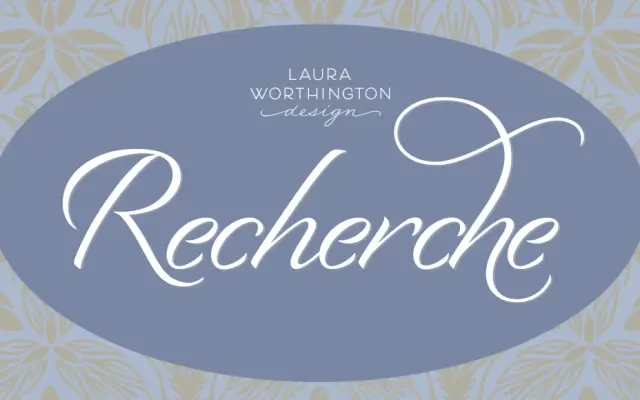
Recherche
A calligraphic italic script with long arcing verticals and 89 lowercase swash alternates, suited to menus, wine labels and wedding stationery.
Built on italic, calligraphic letterforms with oval counters and airy proportions, Recherche leans into decorative elegance through a full set of swash capitals and 89 lowercase swash alternates. The OpenType features are accessible without professional design software, making it practical for a wide range of users. Available as a single Regular style, it is aimed at display and short-form settings where stylistic variety matters more than weight range.
Recherche is based on italic, calligraphic letterforms with long arcing verticals and oval counters, firmly placing it in the script/calligraphic category. Its extensive swash alternates reinforce its decorative, handwritten character.